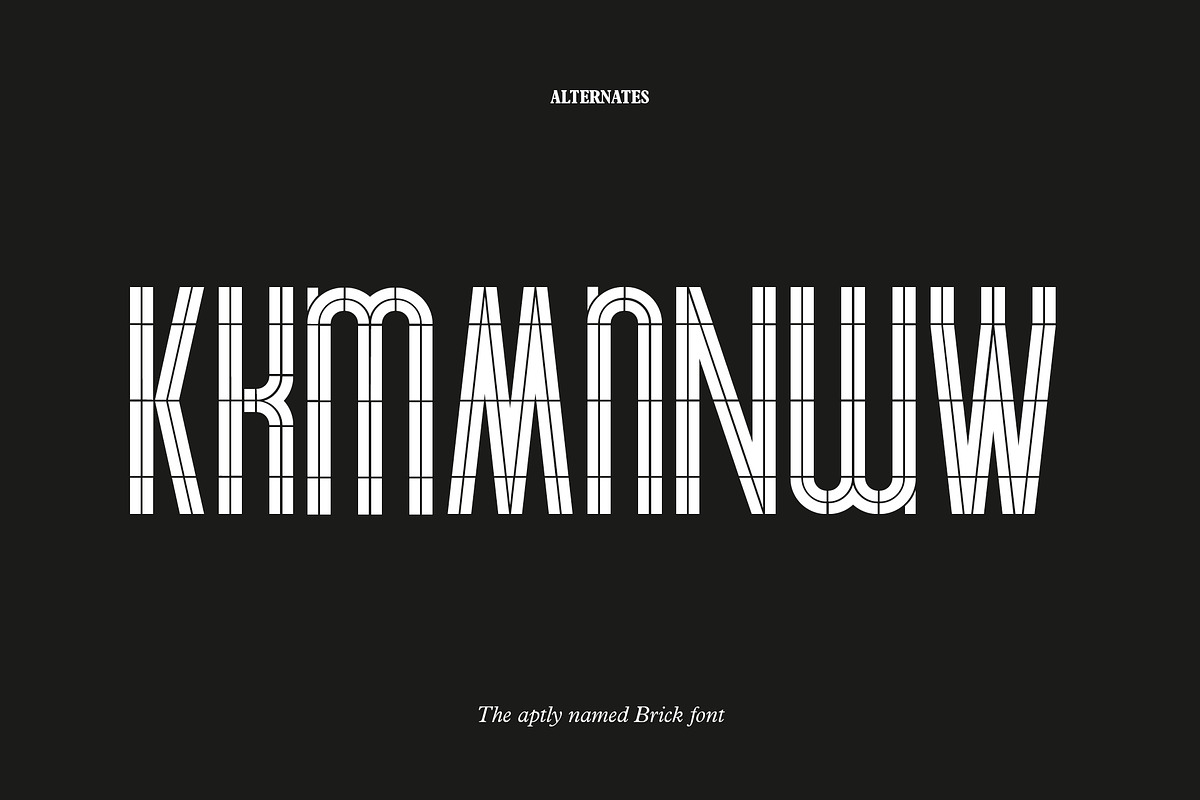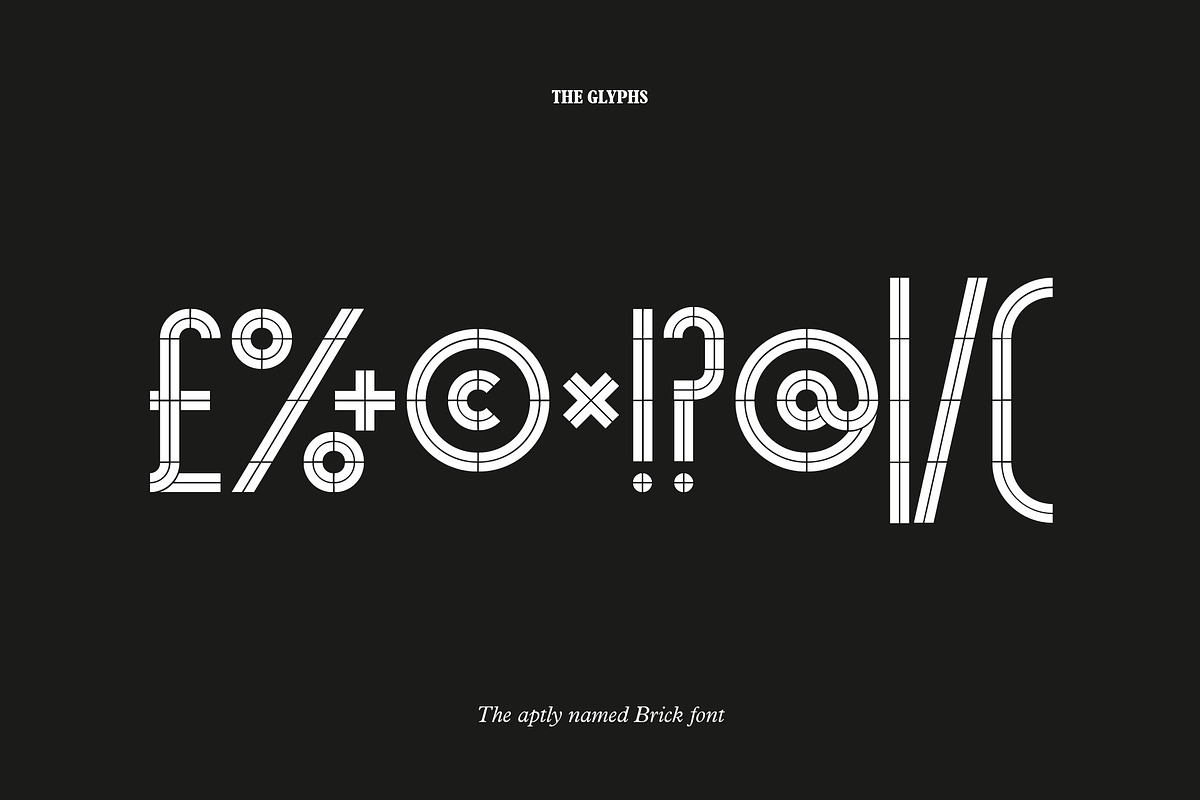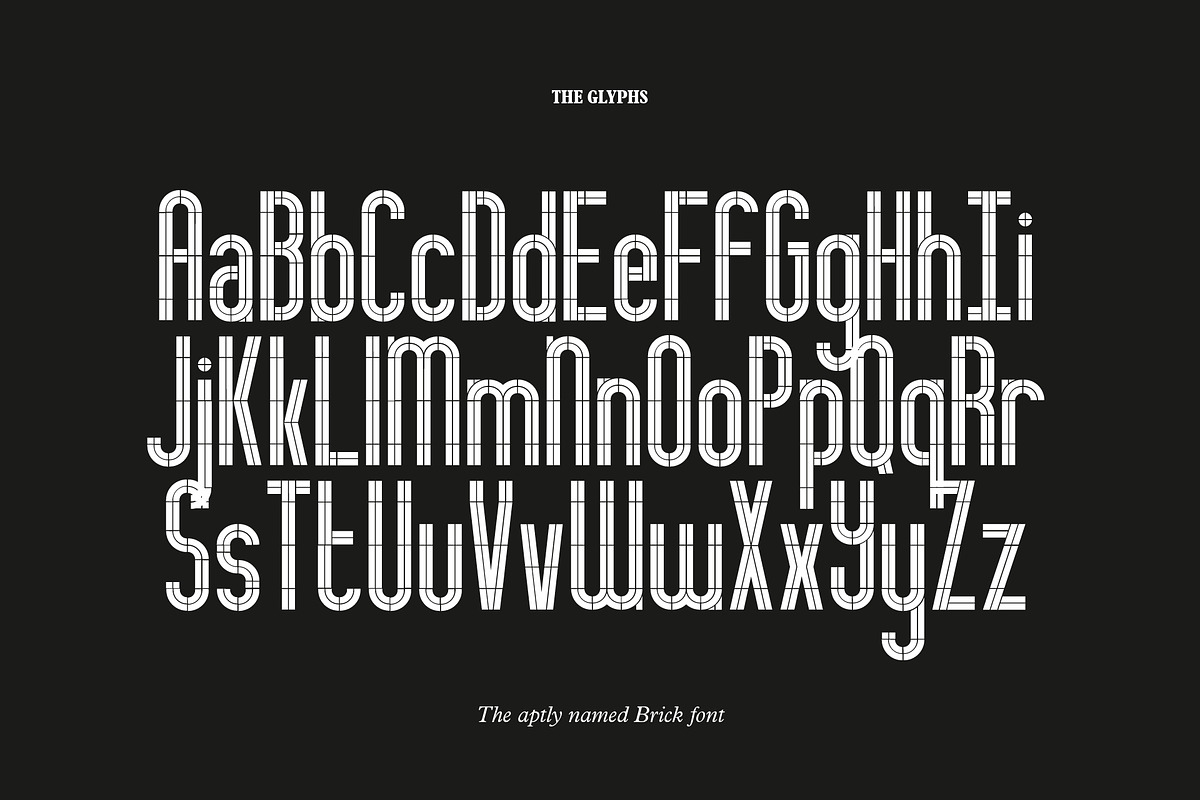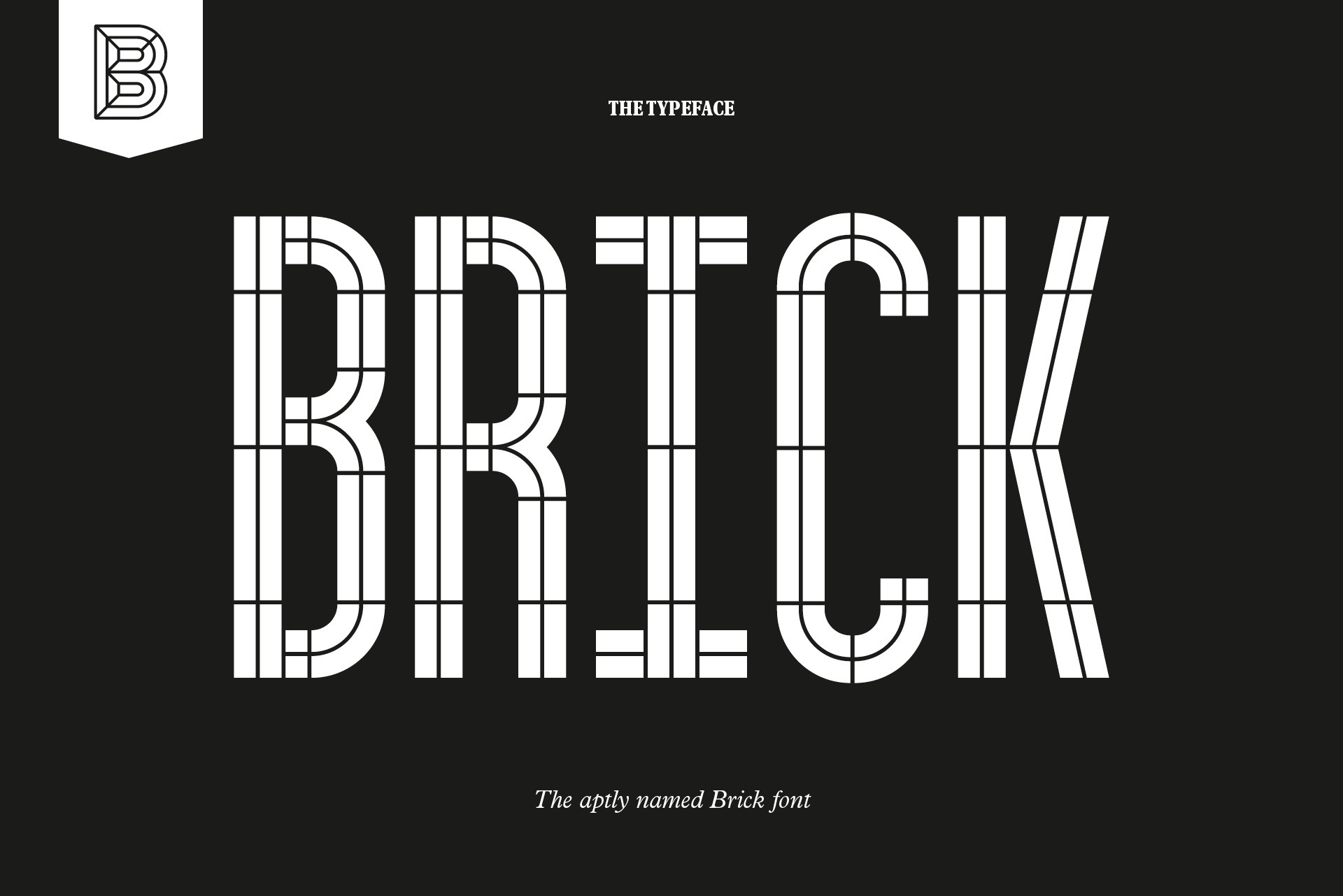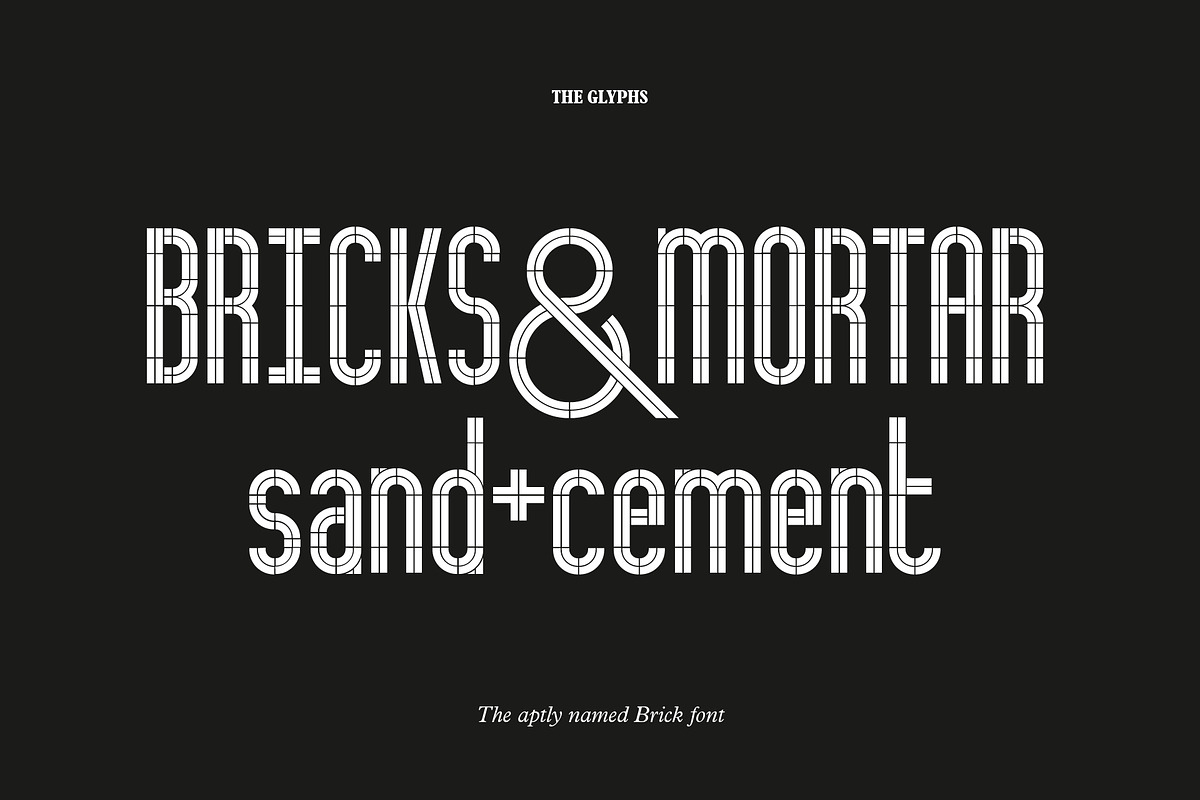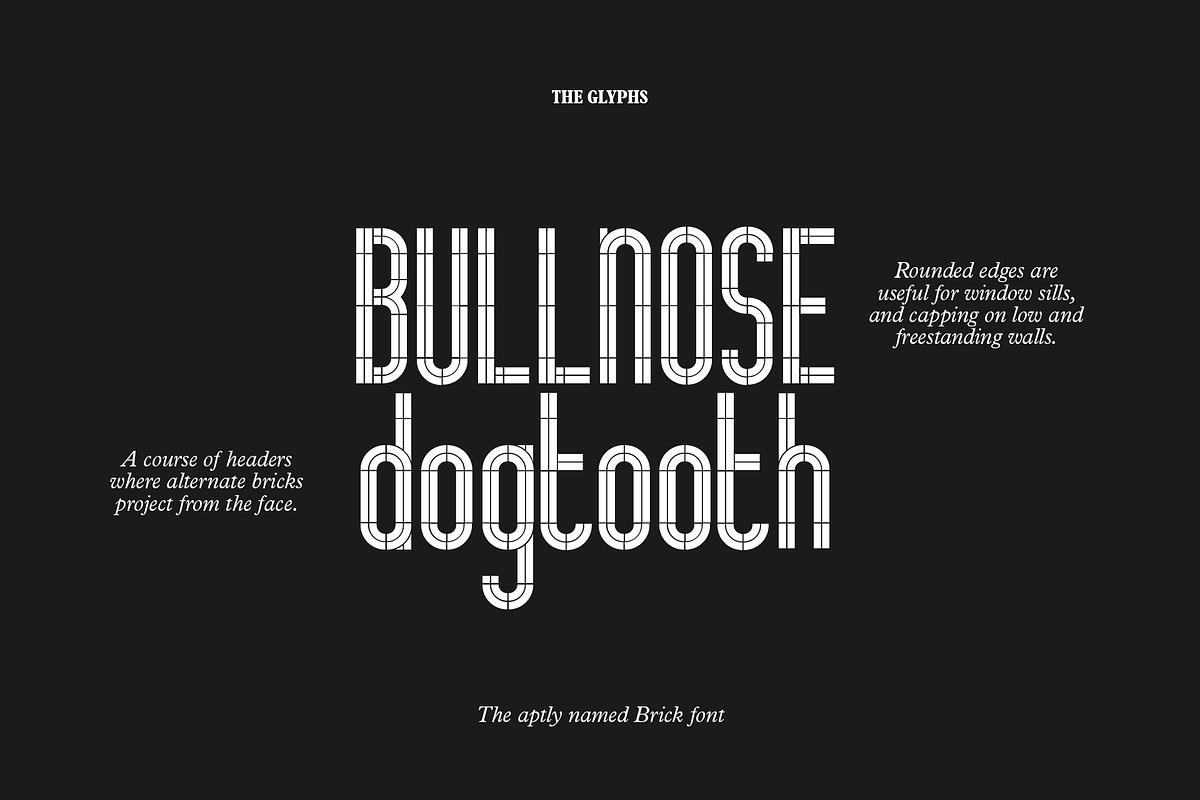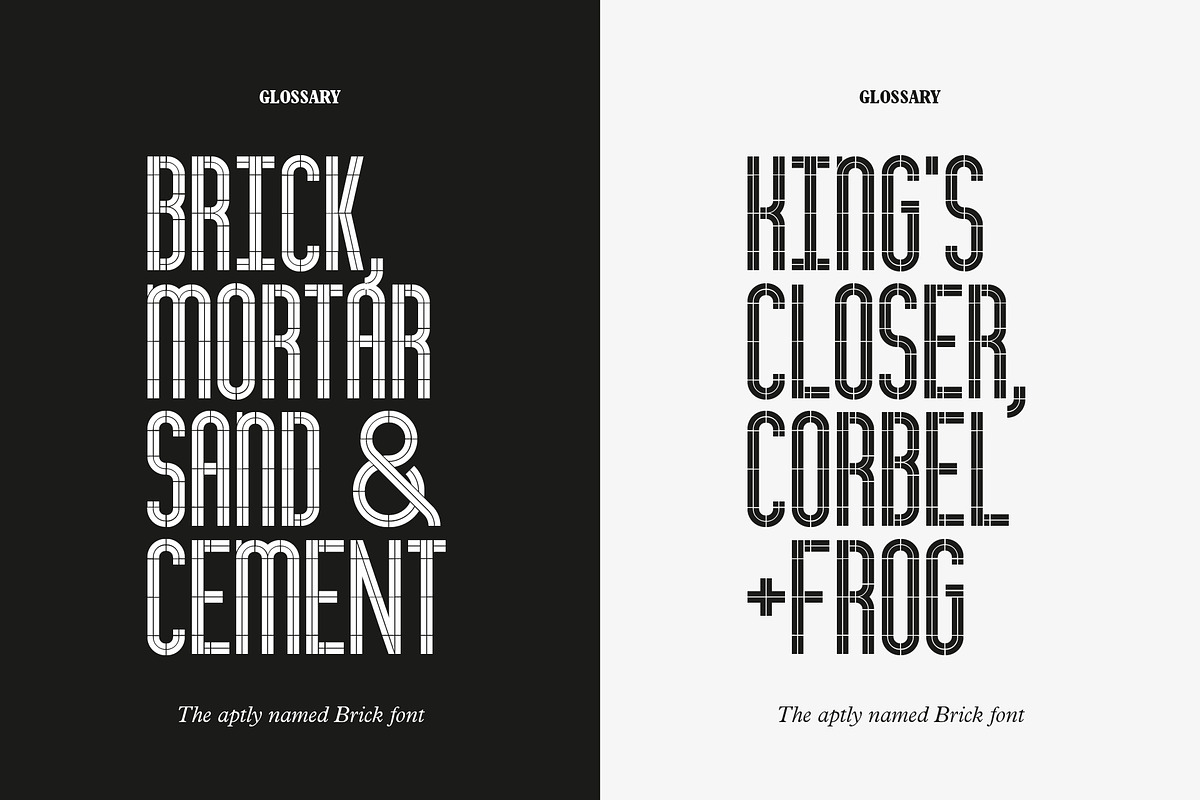
BRICK - A geometric stencil typeface
Brick is a bold, geometric stencil typeface built from strong rectangular forms that echo the structure and solidity of traditional masonry. Each letter is shaped from modular block-like elements, with consistent spacing reminiscent of mortar lines, giving the design a sense of precision and order. Its sharp edges and sturdy weight convey strength and permanence, while optional textured variants introduce the rugged charm of weathered brickwork. Whether used for architectural branding, posters, or bold headlines, Brick stands as a statement of craftsmanship, structure, and timeless durability.